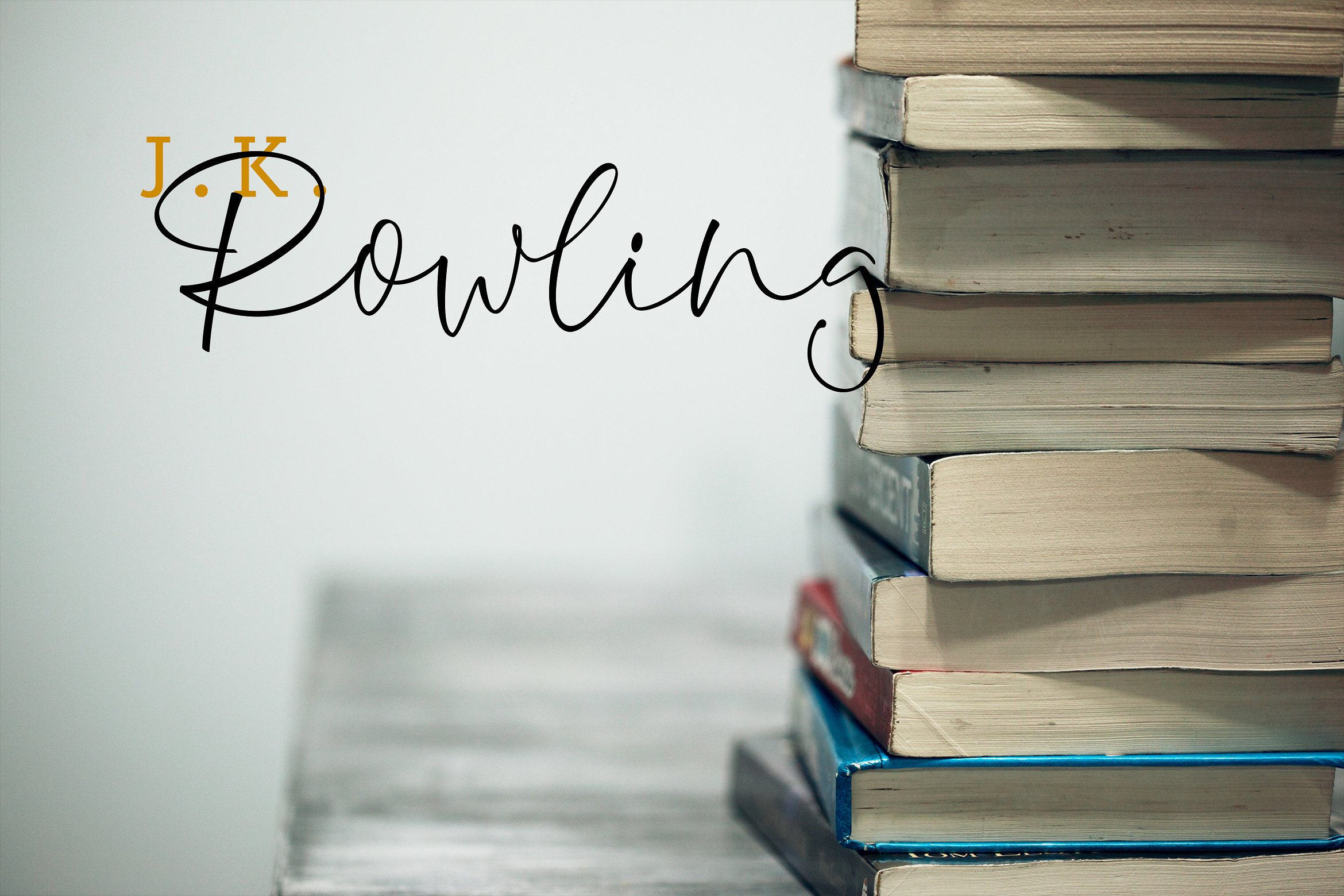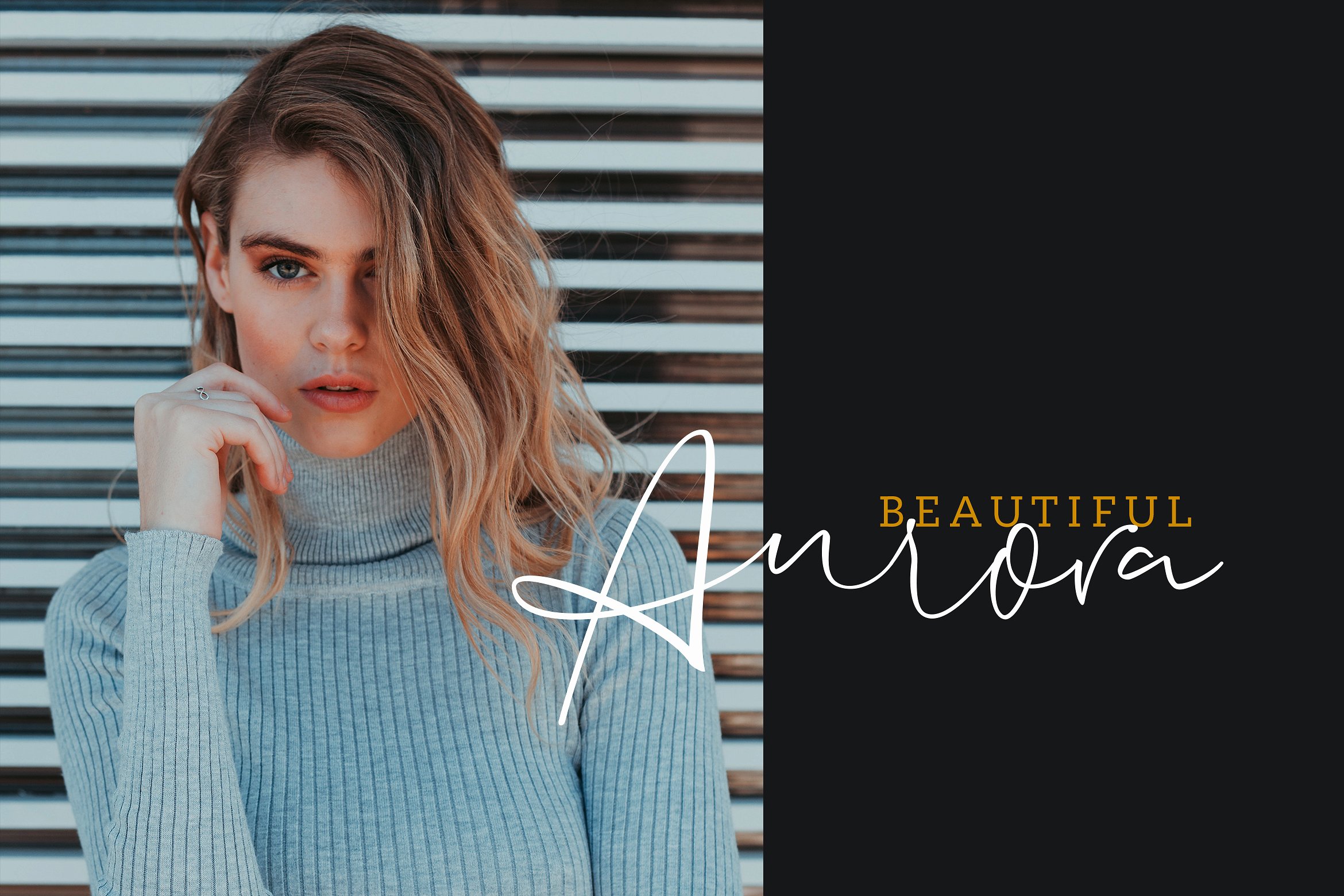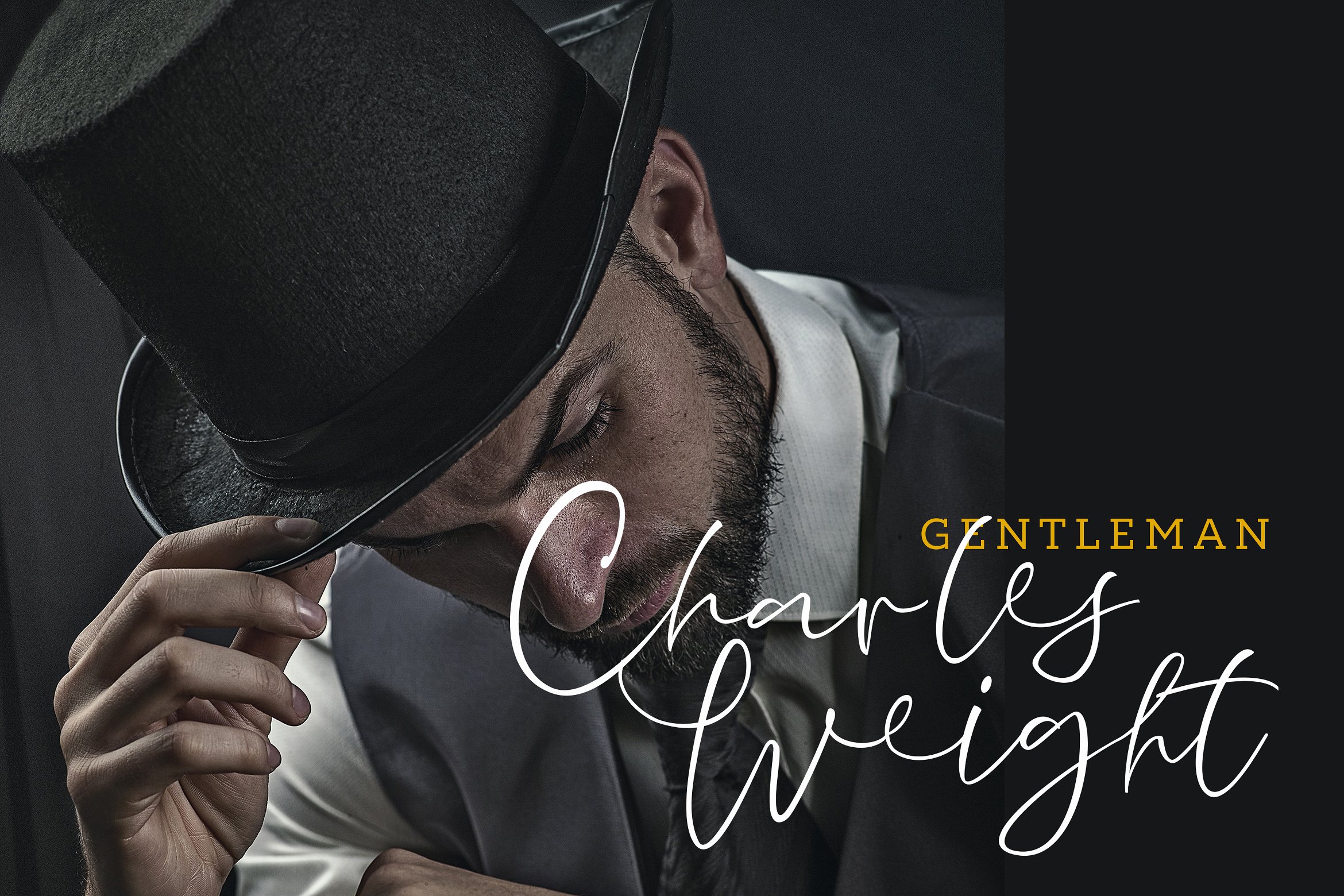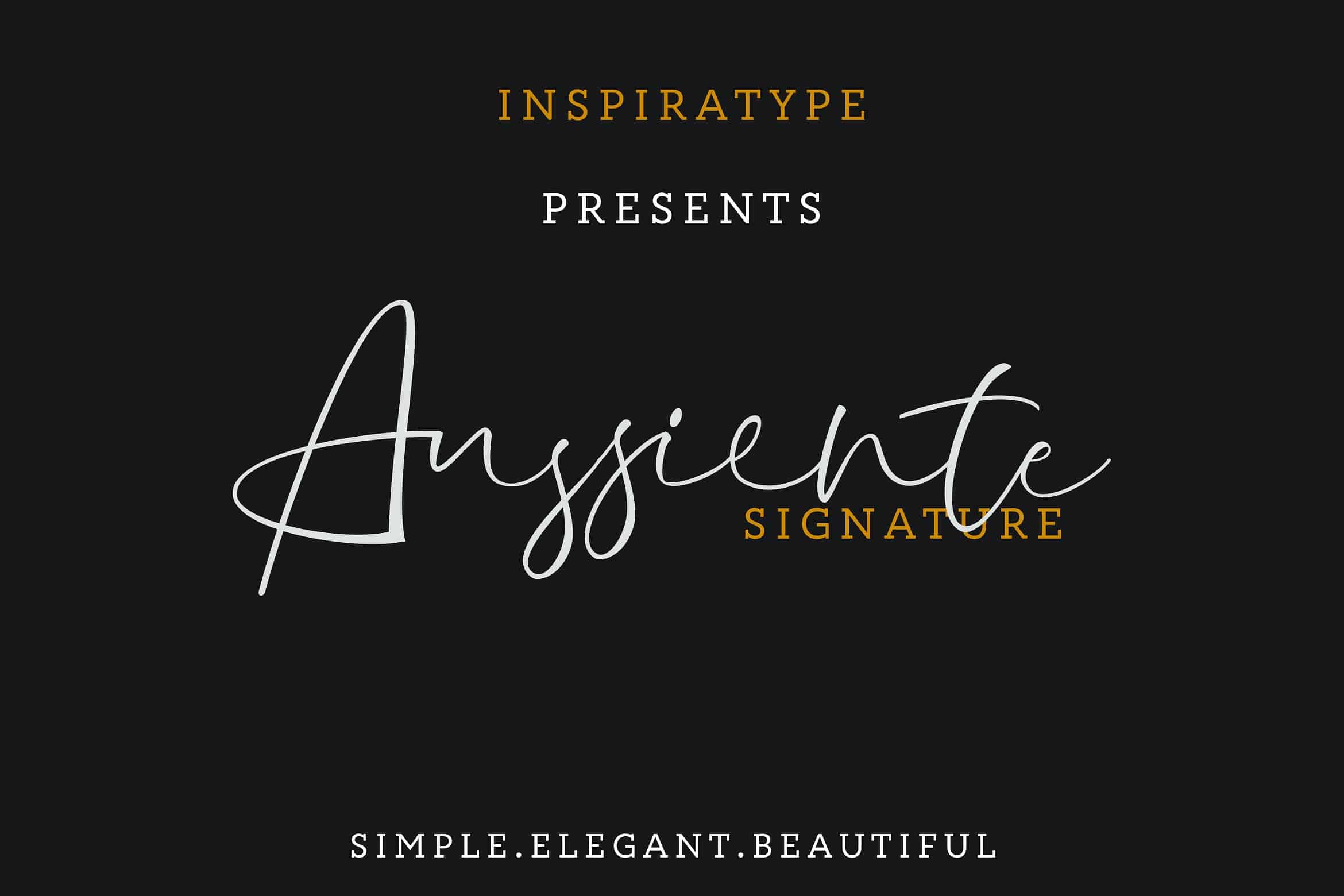
Aussiente Signature Font
Hi Font Lovers! We proudly present Authentic Handwritten Font just for you. Presenting Aussiente Font. Aussiente Signature Font is a font display is made by hand, inspired by classic posters. Comes with uppercase, lowercase, numerals, punctuations and so many variations on each characters include opentype alternates, common ligatures and also additional swash to let you customise your designs. Perfect to use for Logotype, Letterhead, Poster, Apparel Design, Label and etc.